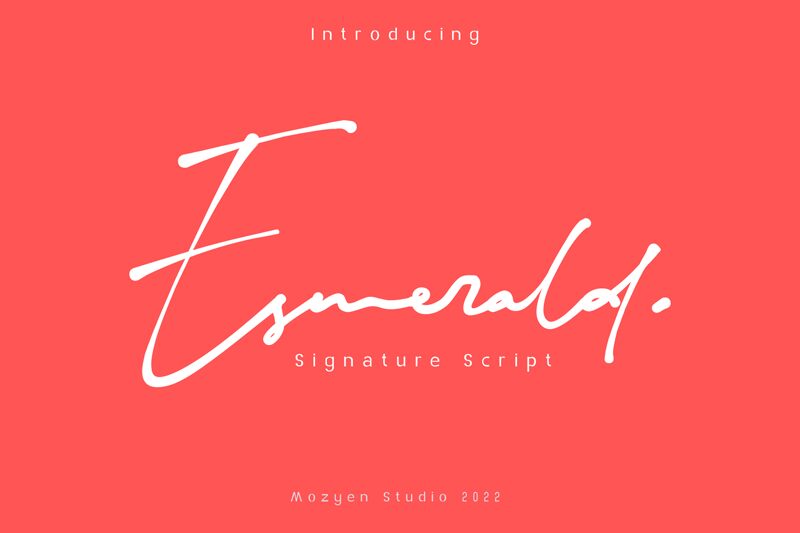
Esmerald, a captivating creation by Mozyen Studio, is an exquisite handwritten signature font that effortlessly exudes elegance and sophistication. With its delicate strokes and graceful curves, this light-weight typeface adds a touch of refinement to any project it graces.
Perfectly suited for wedding invitations, high-end branding materials, or personal stationery, Esmerald lends an air of romanticism and exclusivity. Its timeless appeal makes it equally ideal for fashion magazines, luxury product packaging, or high-quality editorial design.
Let Esmerald's unique charm elevate your creative endeavors to new heights of beauty and allure.